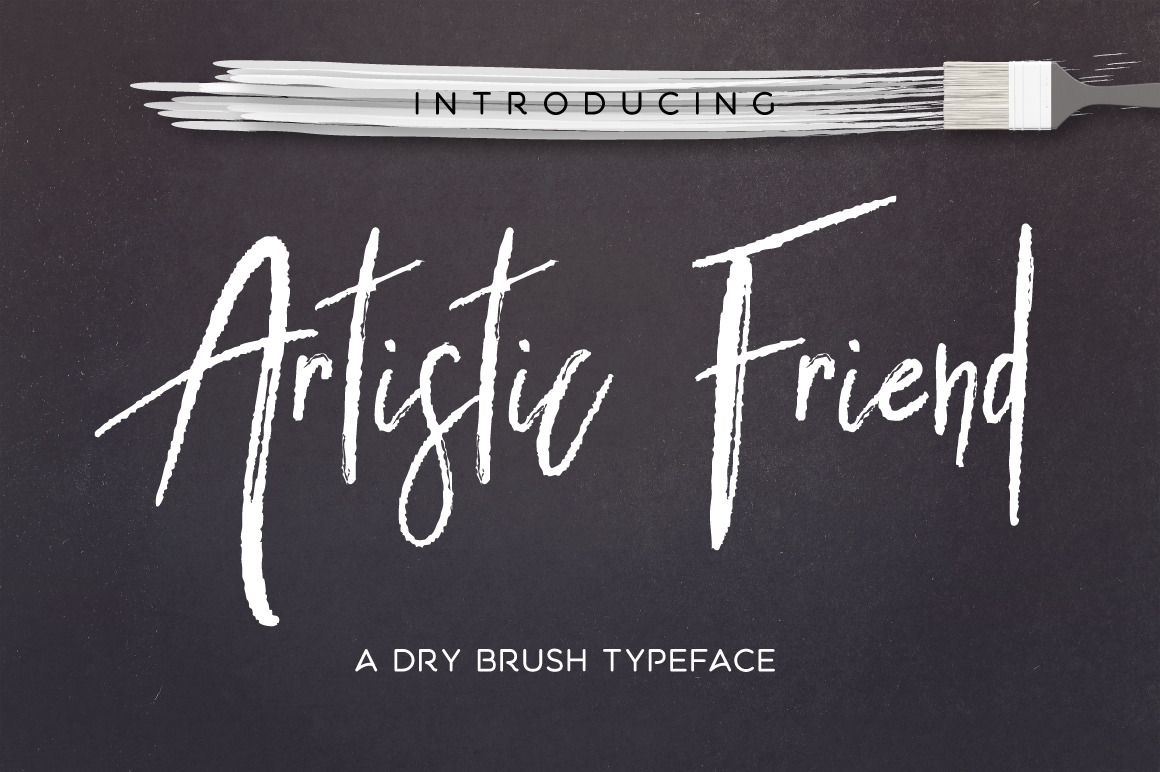
Artistic Friend Rough Font
Artistic Friend
It's hand lettered and modern Rough font. It's a dry brush typeface.
This fonts are perfect for your blog or poster. Also with their help, you can create a logo or beautiful frame for your home. Or just use for your small business, book covers, stationery, marketing, magazines.